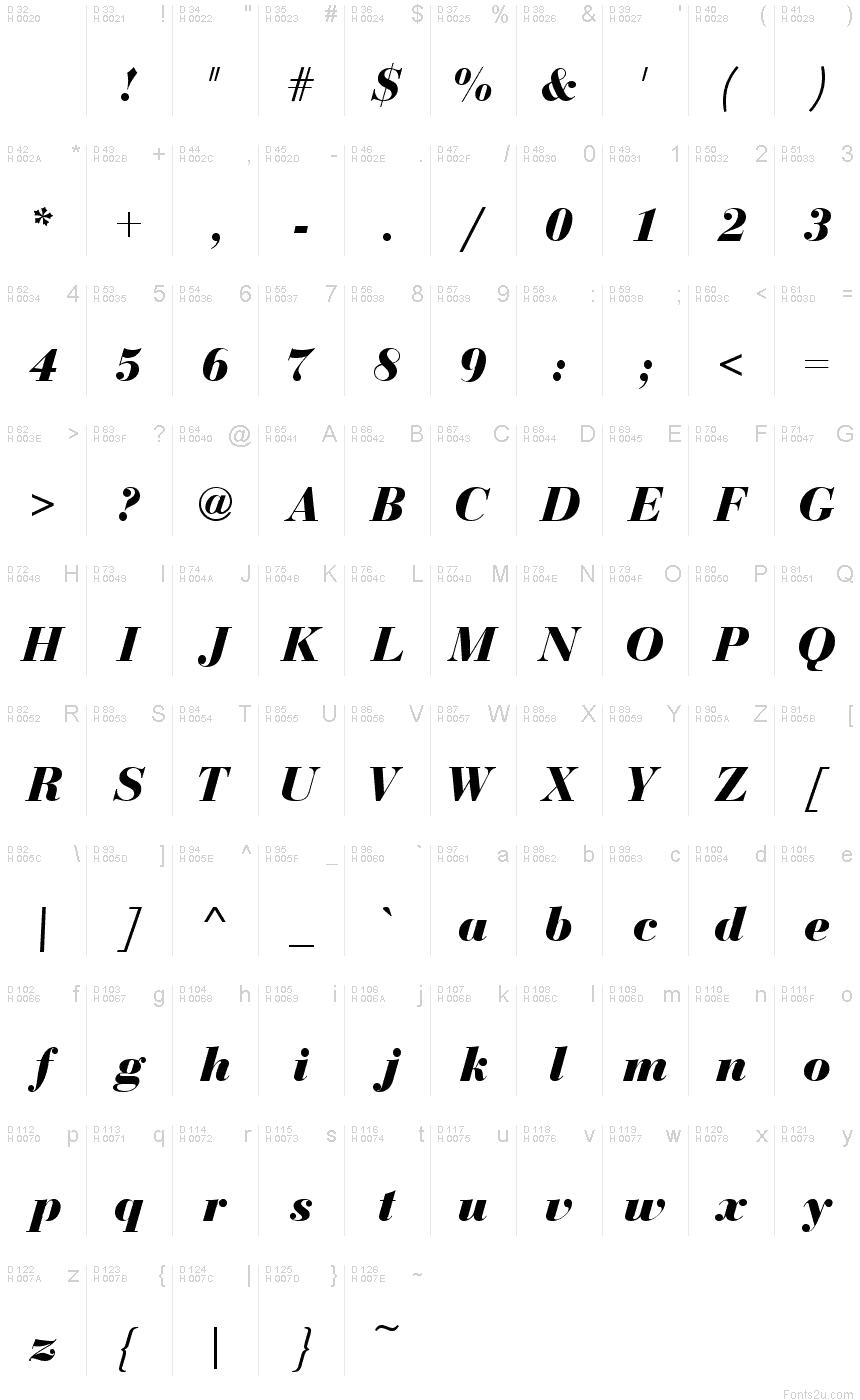
Bedini Bold Italic
Bedini Bold Italic font by MGI Software is a free bold italic serif typeface with a lush, editorial presence. Heavy strokes, a sweeping slant, and tightly sculpted curves give it that unmistakable ’90s magazine drama—ink-heavy and stylish without feeling stiff. It catches the eye fast, then holds it with a smooth, almost calligraphic flow that feels both confident and polished.
Using Bedini Bold Italic, headlines, book covers, fashion branding, wine labels, posters, and event invitations instantly gain a sense of luxe urgency. This free font shines when you let it lead at larger sizes, then pair it with a clean sans from the Bedini family or a neutral grotesque for supporting text.